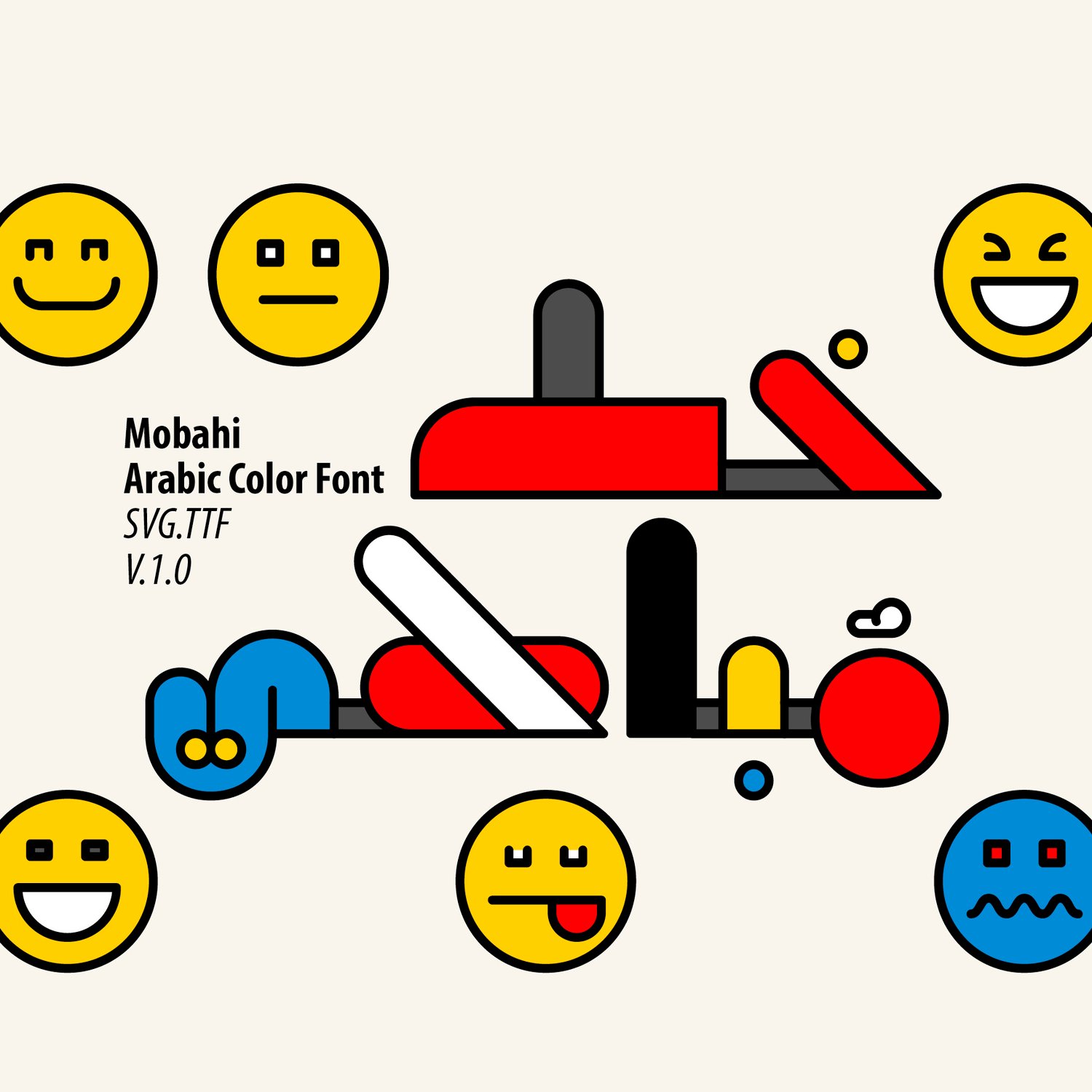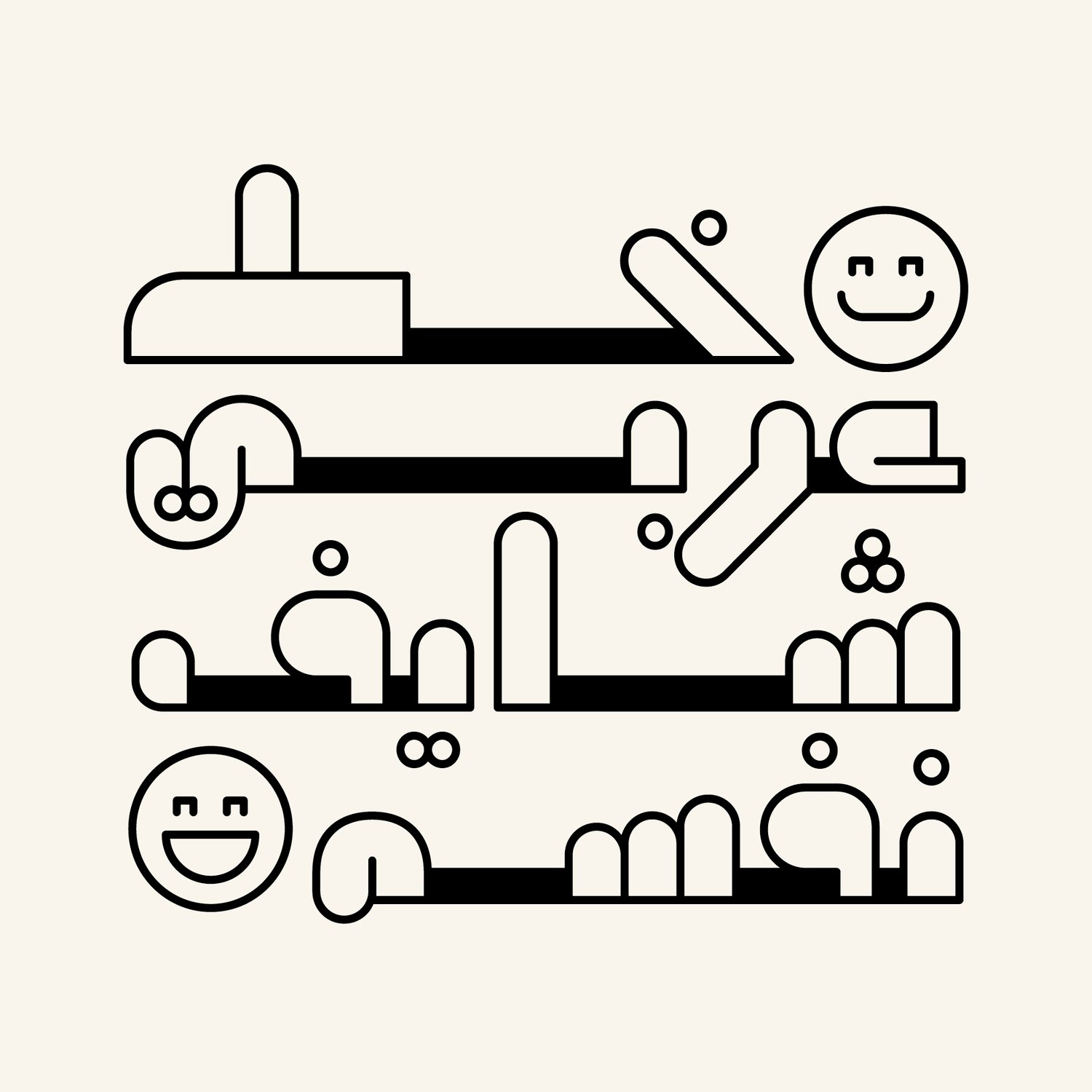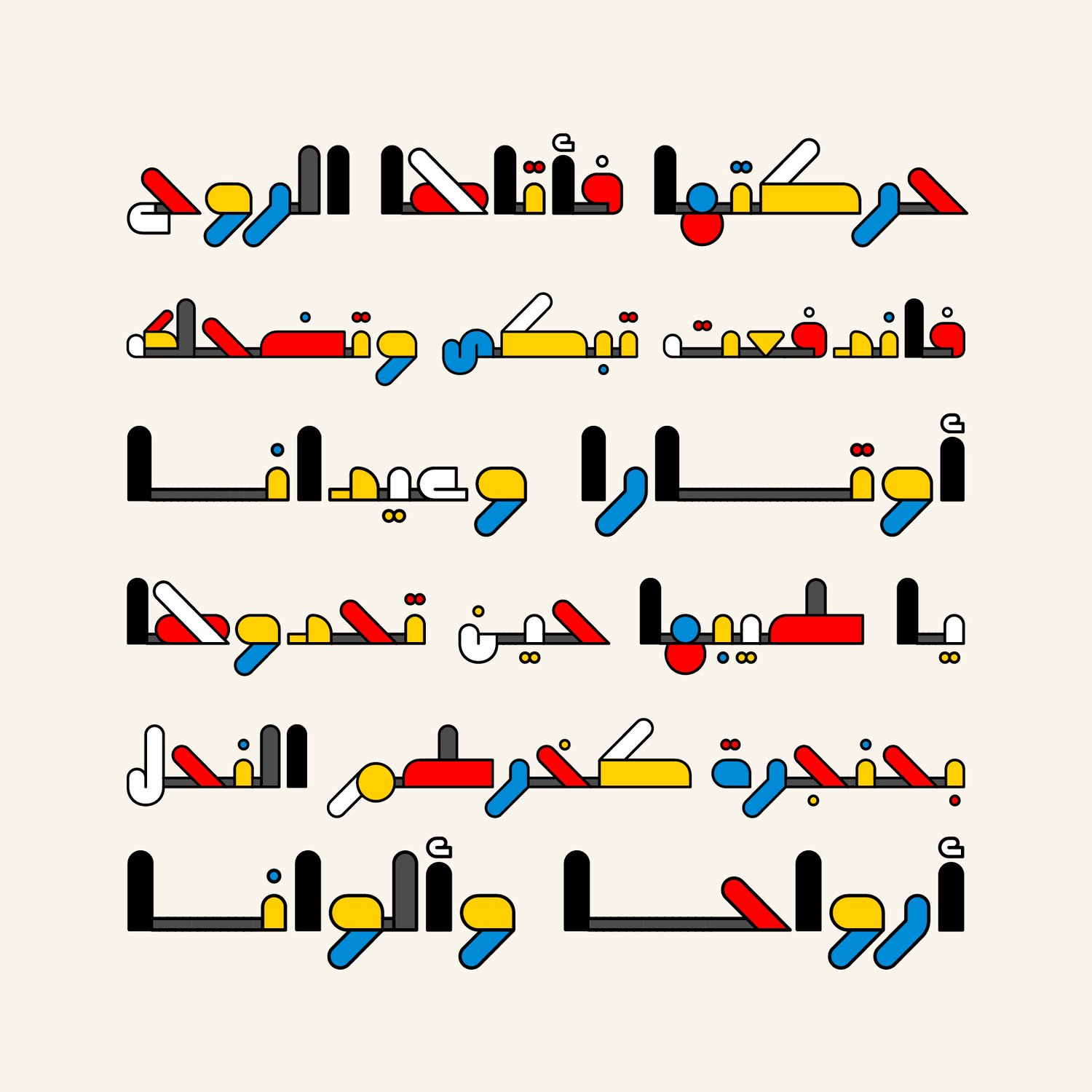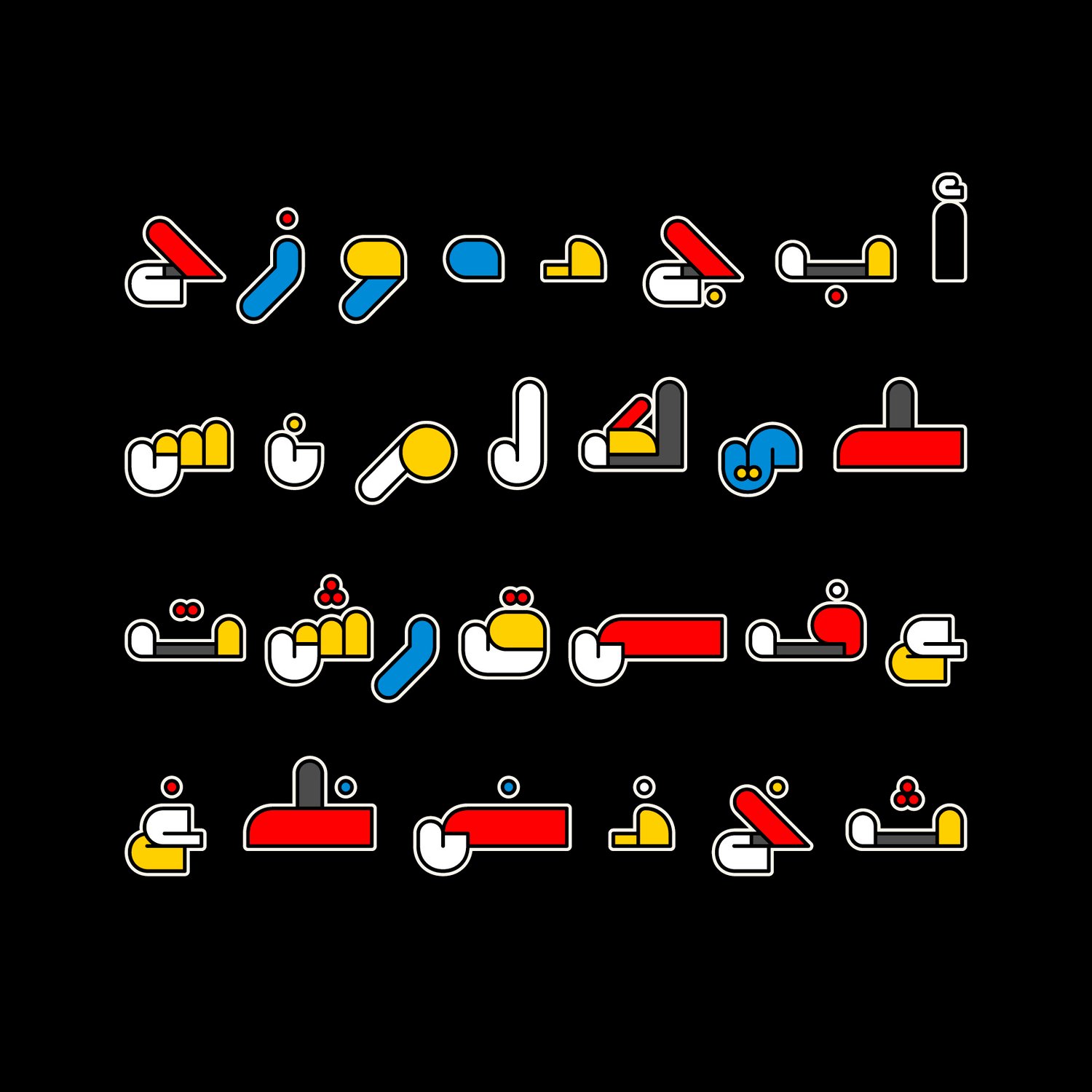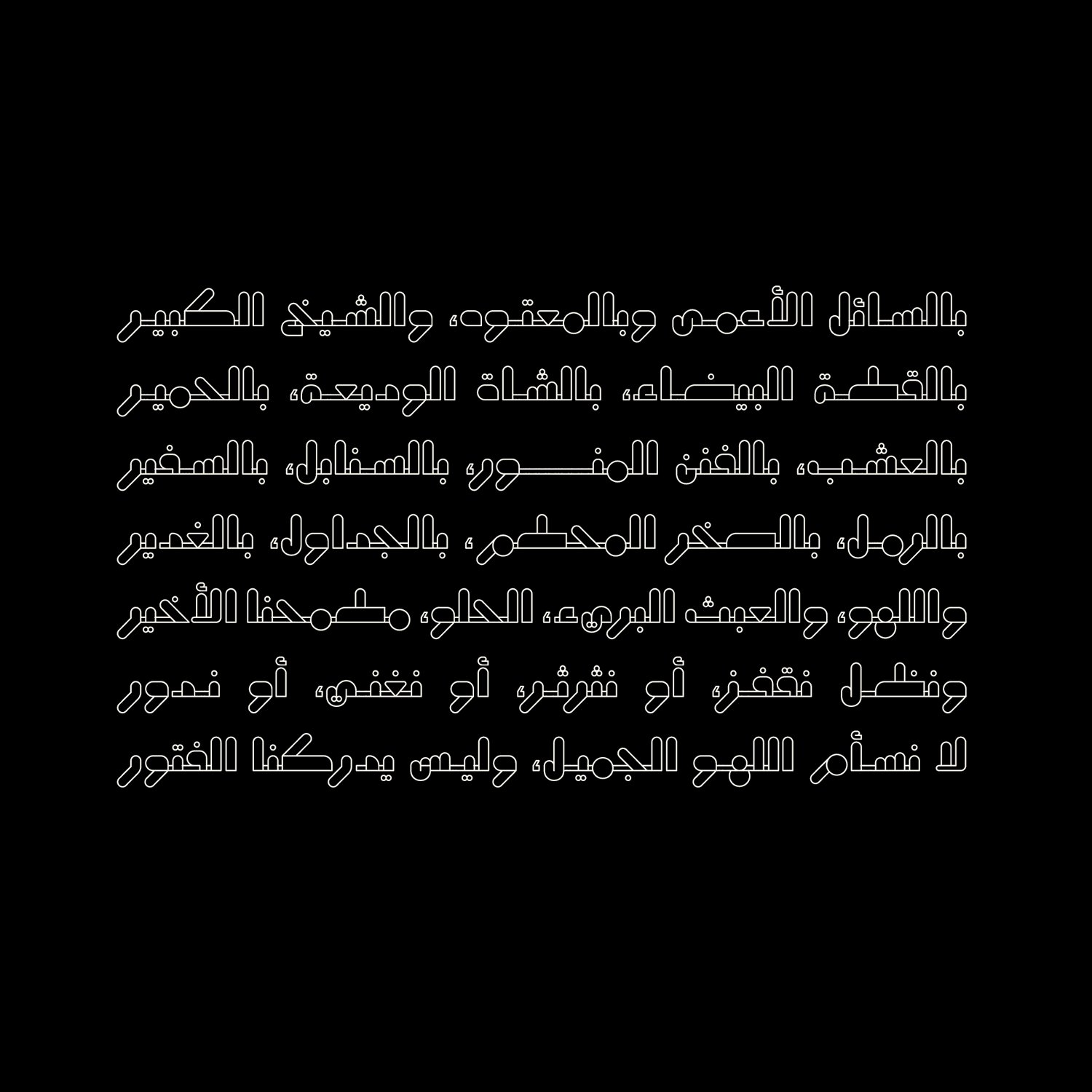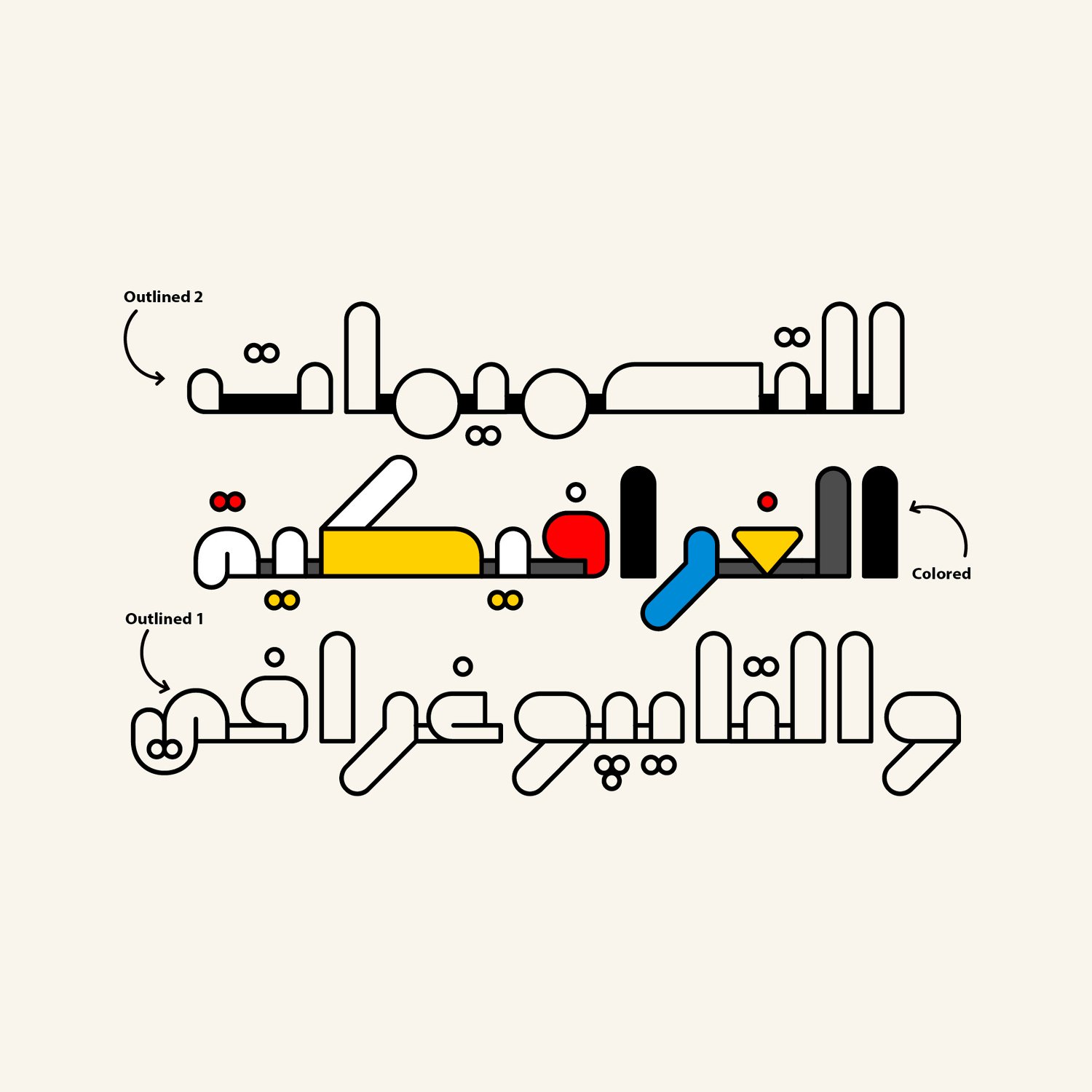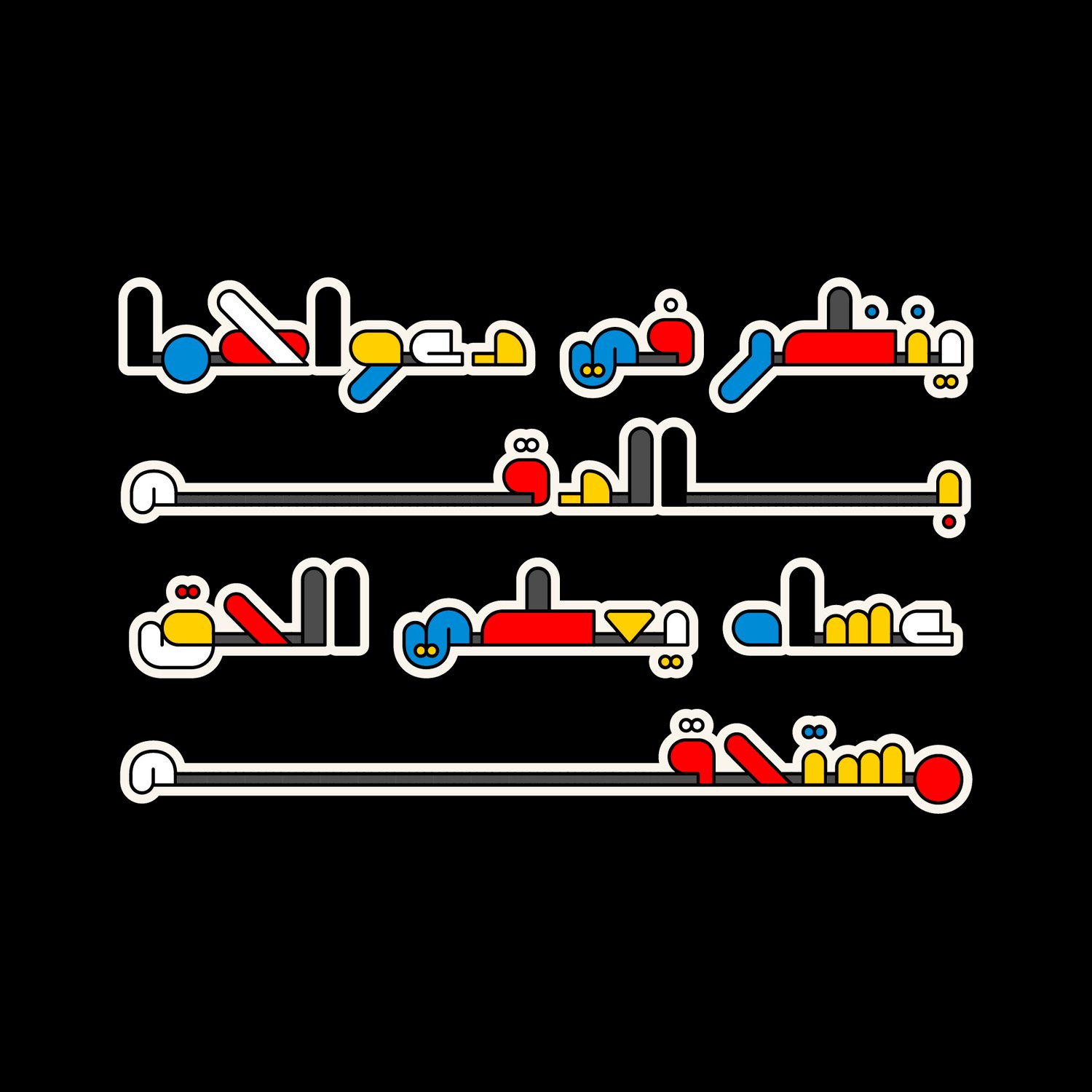
Mobahi - Arabic Color Font
Mobahi (translated from Arabic as 'Boaster') is a playful Arabic display font characterized by its whimsically designed characters. Its aesthetic is influenced by minimalist design principles, utilizing a color scheme reminiscent of Néoplasticism. Mobahi is an OpenType-SVG color font and also comes with two classic OTF fonts (Outlined 1 & 2), along with a set of emojis. This font is ideal for various creative projects, including web design, print materials, branding, and advertising. It is compatible with Windows, macOS, and mobile applications.